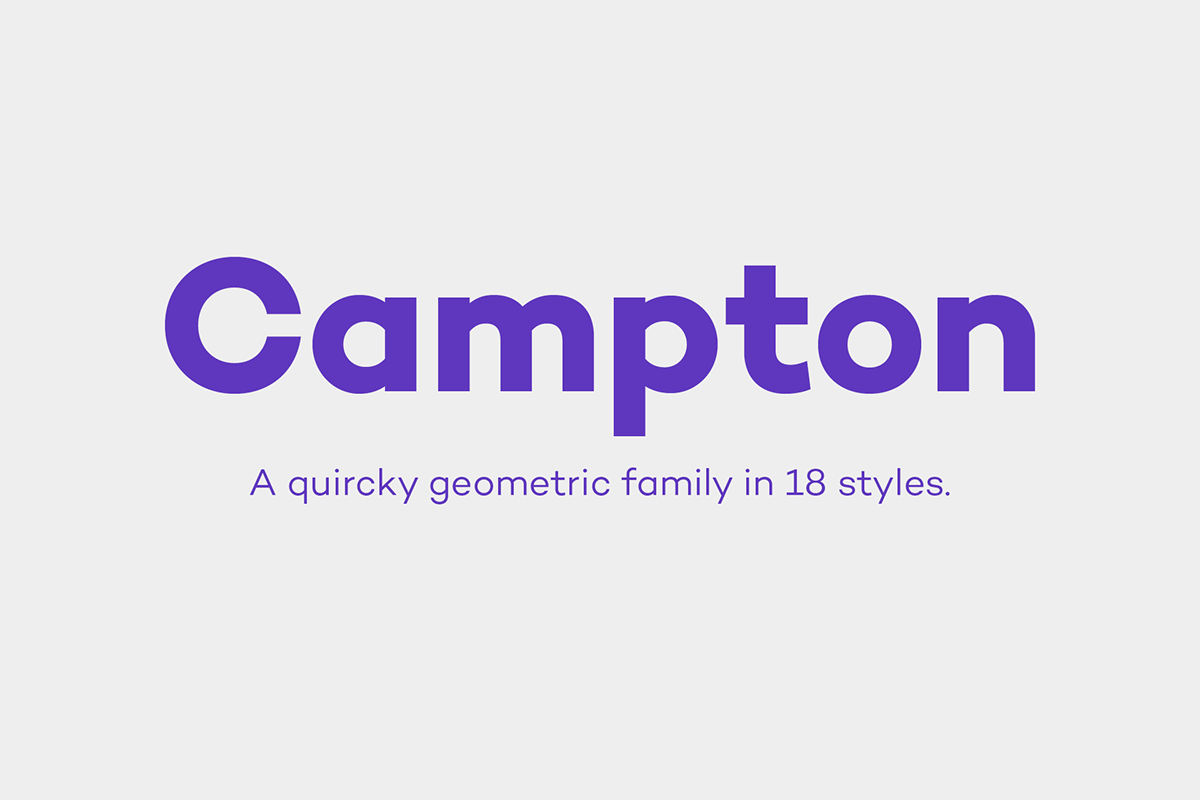
Campton.
A quirky geometric.
Campton is an unconventional geometric family based on geometric fonts like Futura or Avant Garde. The result is a modern and quircky family that is perfectly suited for graphic design application ranging from editorial and corporate design to web and interaction design.